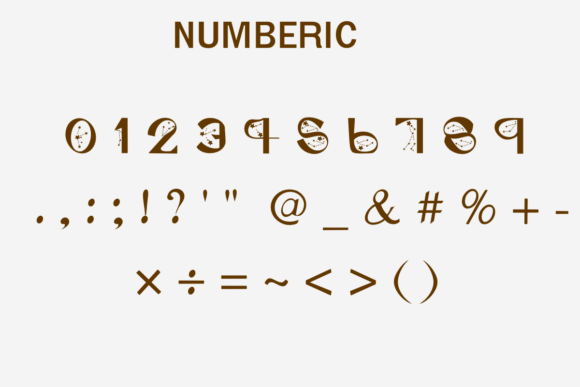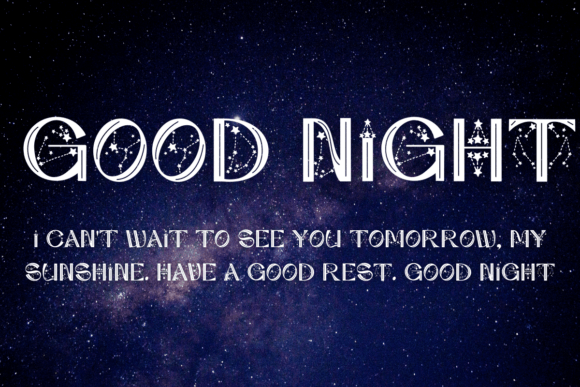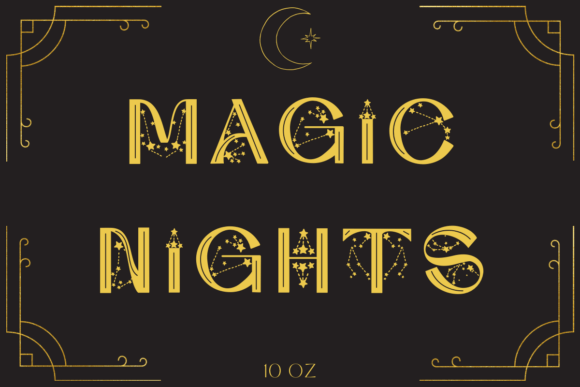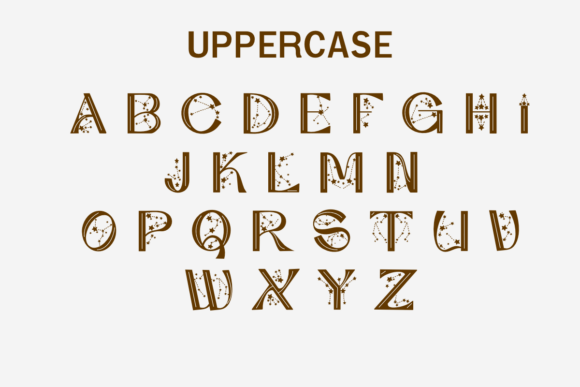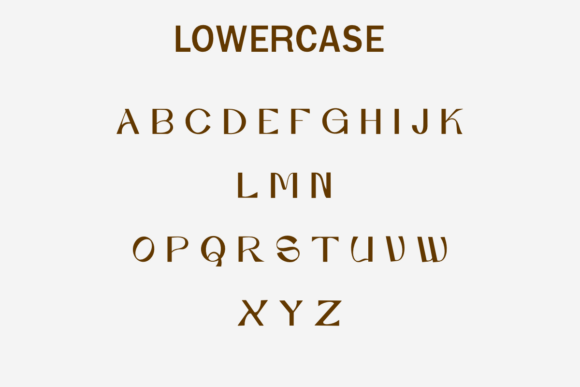
Celestial Body Font: A Decorative Delight for Designers and Crafters
Are you on the lookout for a unique and captivating font to elevate your designs? Look no further than the Celestial Body font! This decorative font is perfect for adding a touch of elegance and whimsy to your projects, making it an ideal choice for designers and crafters alike.
What is Celestial Body Font?
Celestial Body font is a beautiful, hand-crafted typeface that is sure to add a dash of personality to any design. Its intricate and ornate details make it a standout font that is perfect for a variety of creative projects. Whether you’re looking to create stunning visual content, craft personalized gifts, or simply add some flair to your digital communications, Celestial Body font is the perfect choice.
Uses for Celestial Body Font
One of the best things about Celestial Body font is its versatility. While it’s perfect for everyday writing, such as taking notes or writing in a diary, it’s also ideal for more creative pursuits. Here are just a few ideas to get you started:
• Journaling and Diary-Keeping: Add a touch of elegance to your journal or diary with Celestial Body font. Its decorative details make it perfect for writing down your thoughts, goals, and inspirations.
• Greeting Cards: Create beautiful, one-of-a-kind greeting cards for special occasions, such as birthdays, weddings, and holidays.
• Banners and Signs: Use Celestial Body font to create eye-catching banners and signs for parties, events, or promotions.
• Social Media Posts: Add some flair to your social media posts with Celestial Body font. It’s perfect for creating engaging and shareable content.
• Merchandise: Use Celestial Body font to create custom merchandise, such as mugs, t-shirts, and tote bags.
• Stationery: Create beautiful stationery, such as letterheads, invitations, and thank-you cards, with Celestial Body font.
Why Choose Celestial Body Font?
So why choose Celestial Body font over other decorative fonts? Here are just a few reasons:
• Unique and Eye-Catching: Celestial Body font is truly one-of-a-kind. Its intricate details and ornate design make it a standout font that’s sure to grab attention.
• Versatile: As mentioned earlier, Celestial Body font is perfect for a wide range of creative projects, from journaling and diary-keeping to designing banners and social media posts.
• Elegant and Whimsical: Celestial Body font has a touch of elegance and whimsy that’s hard to find in other fonts. It’s perfect for adding a dash of personality to your designs.
Tips for Using Celestial Body Font
Here are a few tips for getting the most out of Celestial Body font:
• Experiment with Sizes: Celestial Body font looks great in a variety of sizes, from small and delicate to large and bold. Experiment with different sizes to find the one that works best for your project.
• Pair with Other Fonts: Celestial Body font pairs well with a variety of other fonts. Try pairing it with a clean, sans-serif font for a striking contrast.
• Use it Sparingly: While Celestial Body font is beautiful, it can be a bit overwhelming if used too much. Use it sparingly to add a touch of elegance and whimsy to your designs.
In conclusion, Celestial Body font is a beautiful and versatile decorative font that’s perfect for designers and crafters alike. Its intricate details and ornate design make it a standout font that’s sure to add a touch of elegance and whimsy to any project. Whether you’re looking to create stunning visual content, craft personalized gifts, or simply add some flair to your digital communications, Celestial Body font is the perfect choice. So why not give it a try and see what amazing creations you can come up with?